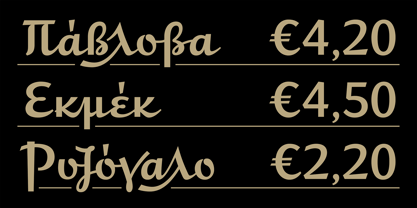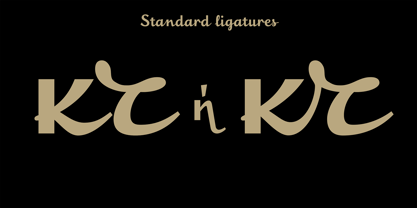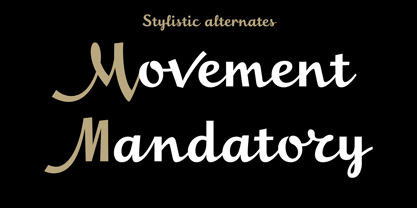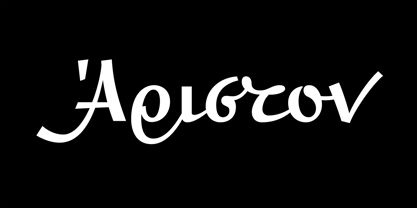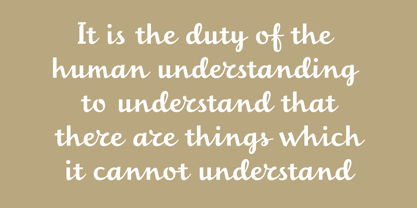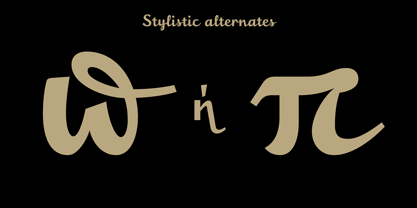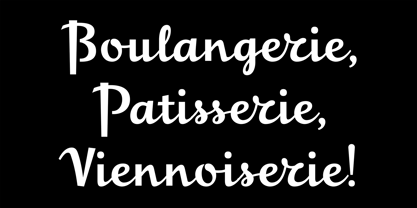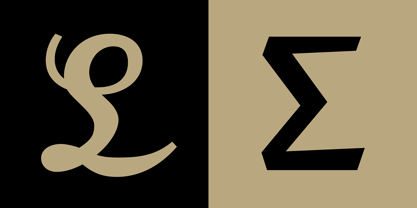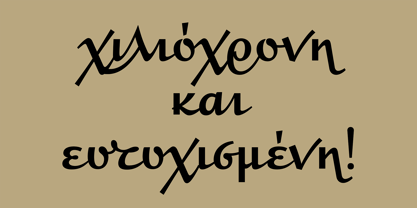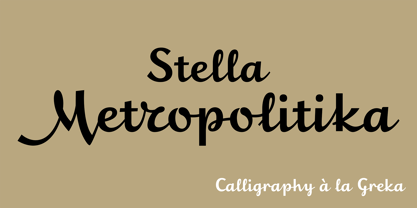
Stella Metropolitika
The Stella Metropolitika Font Family was designed by Panos Haratzopoulos and published by Fonts.GR. Stella Metropolitika contains 1 styles. More about this family
Stella Metropolitika is a special font by Stella Project. It is an upright —and not inclined— handwritten font, something quite rare among the archival material studied. At its core is the signage of a well-known pastry shop “Metropolitikon” in the center of Athens, a particularly expressive lettering, with a very calligraphic feel and connections between the characters. With few other similar examples of writing, the font was actually “invented” in an attempt to reconstruct all the characters based on this lettering. Another element that characterizes it is the connections between the characters, a fluid script which makes it look like continuous writing so that the pen is guided from one letter to the next without lifting from the paper. To achieve this, hundreds of alternative characters and ligatures had to be designed, from which the appropriate ones are automatically selected when typing.